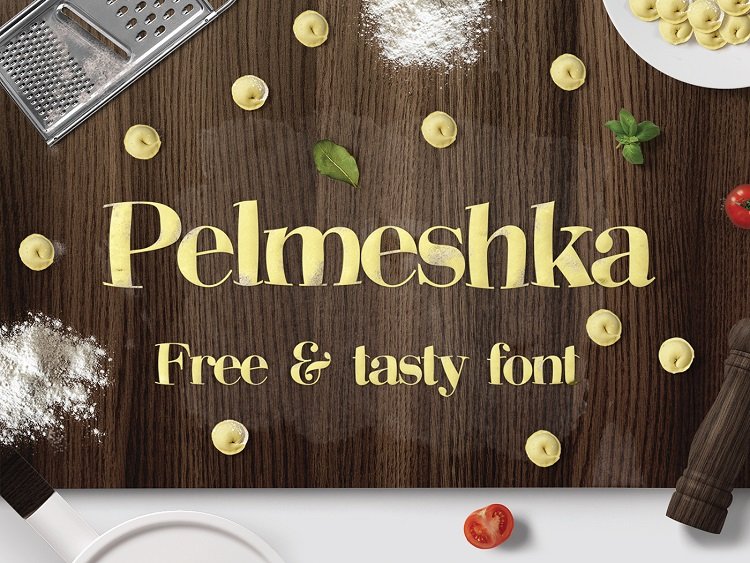
Pelmeshka – Font
Pelmeshkas is latest Free font.This Font is best for different events like childrenbirthday,Lettering & magazine.Pelmeshka have new & Modern look.Best for any graphics and banners.created by Cyril Mikhailov & available for personal and commercial use.